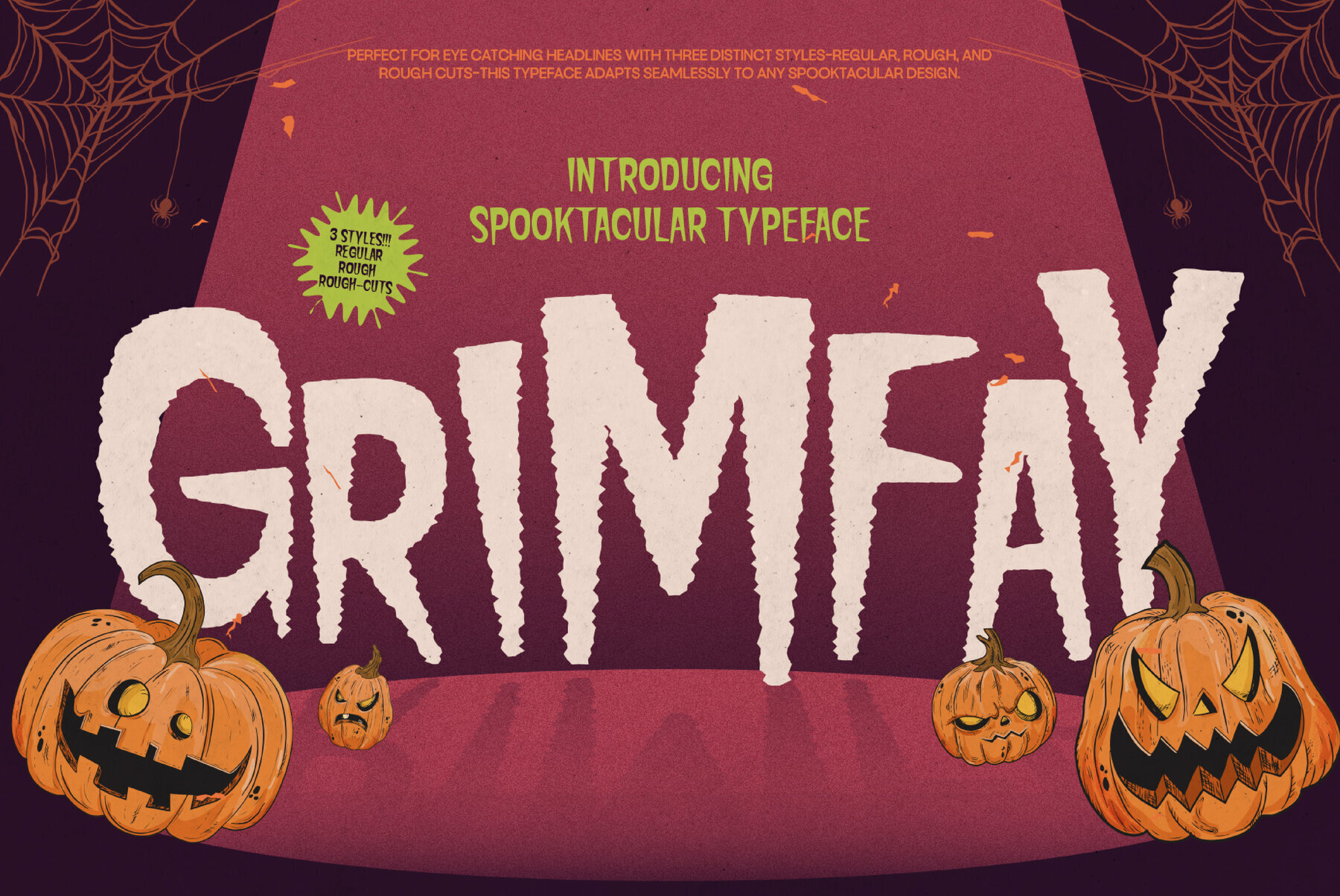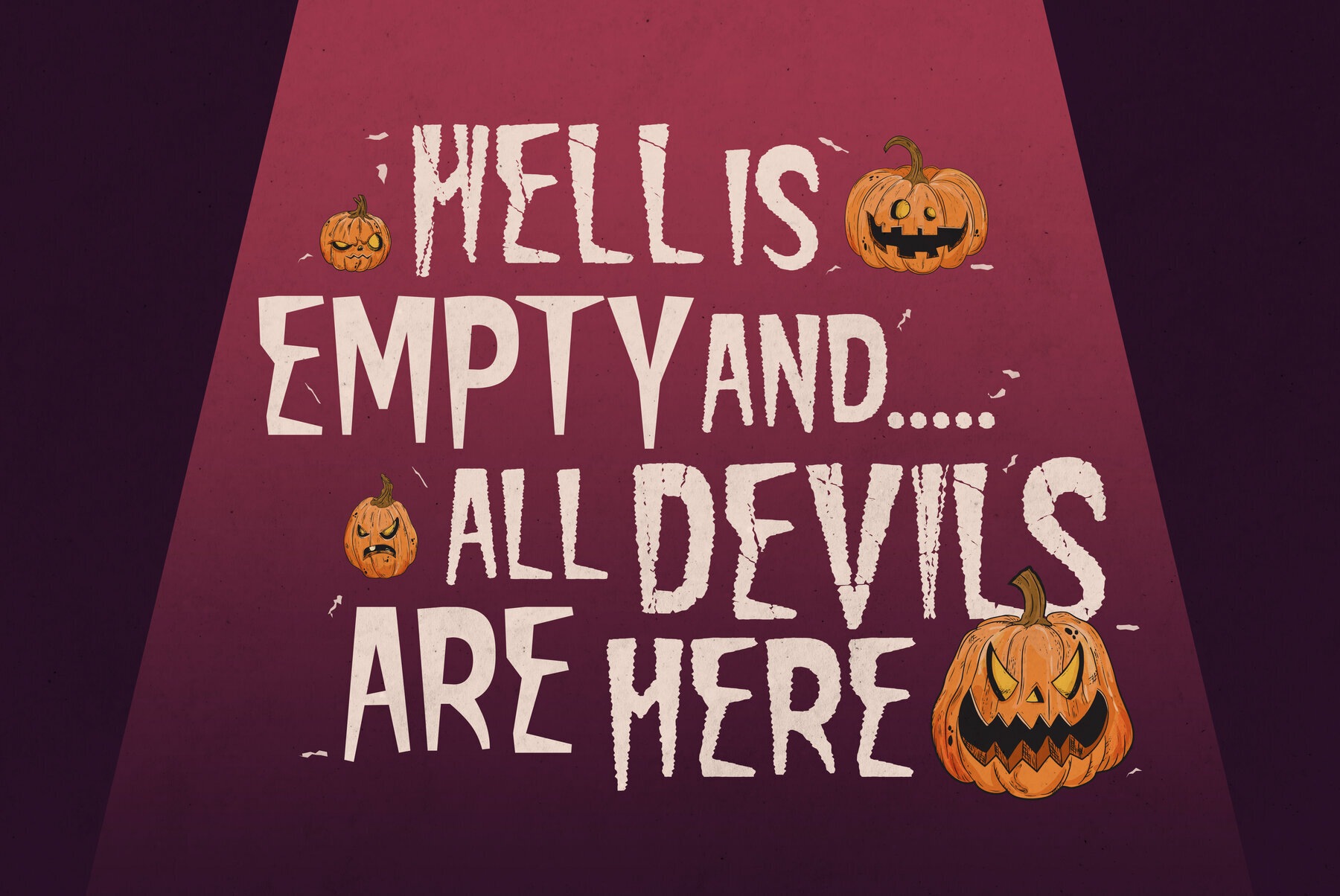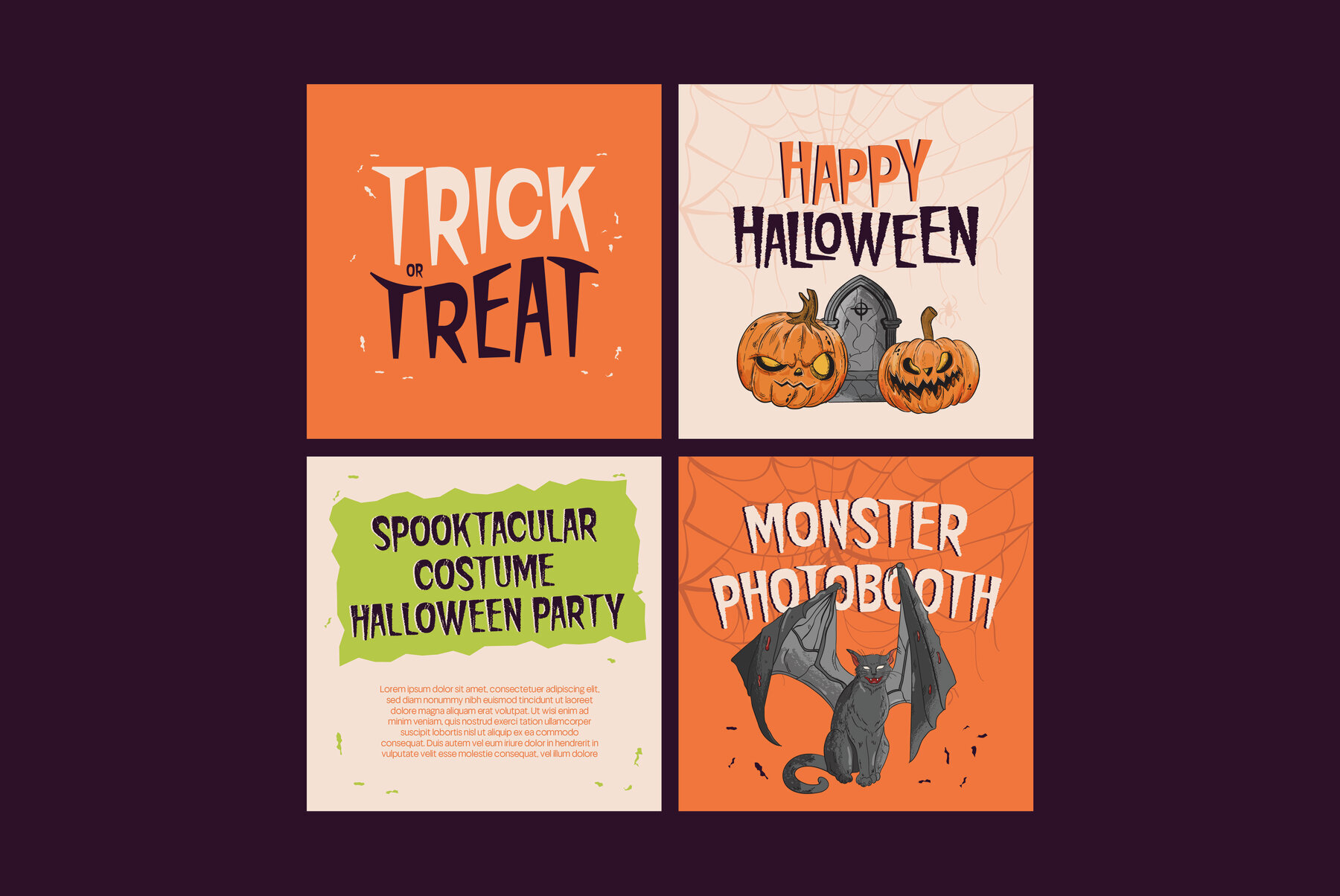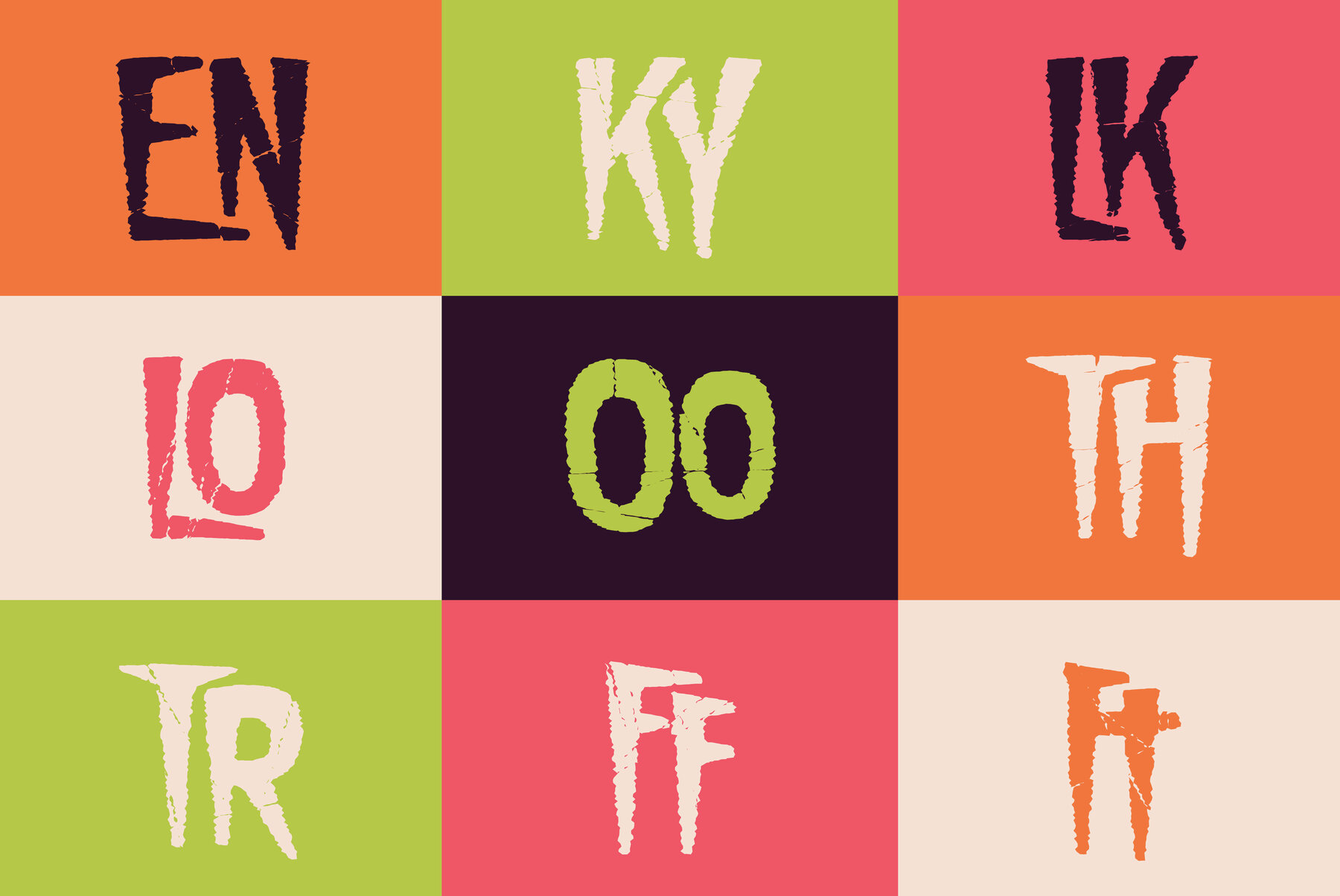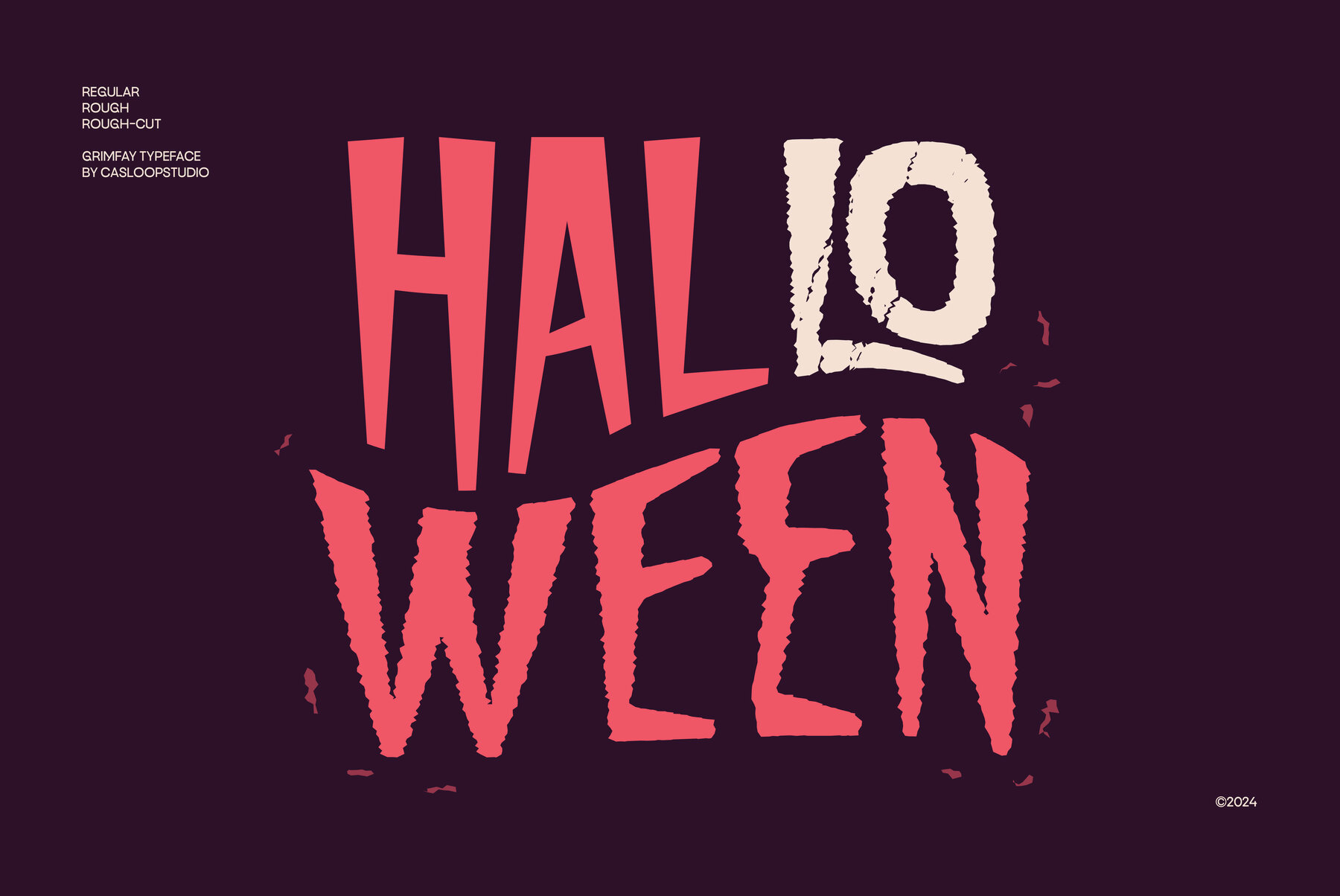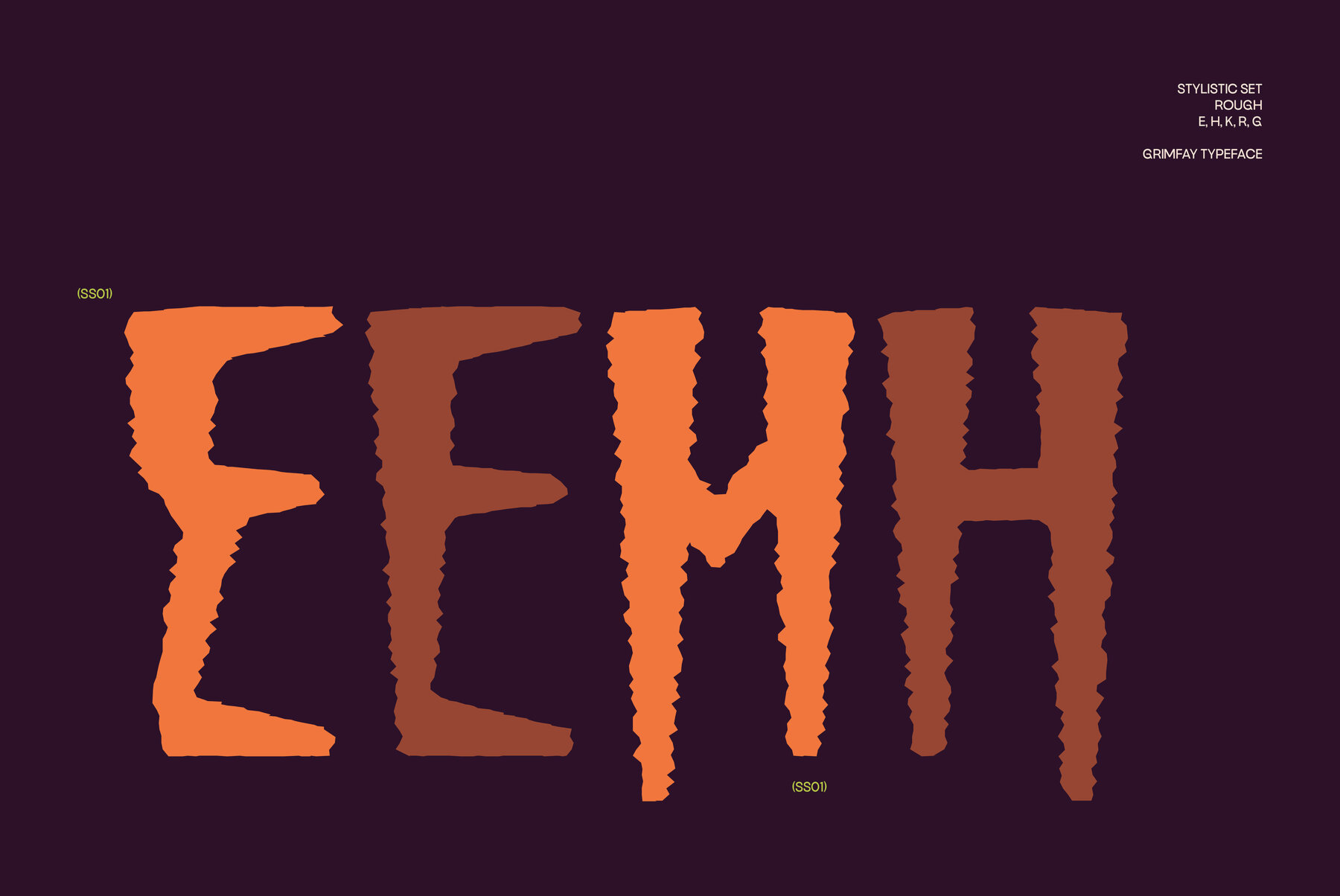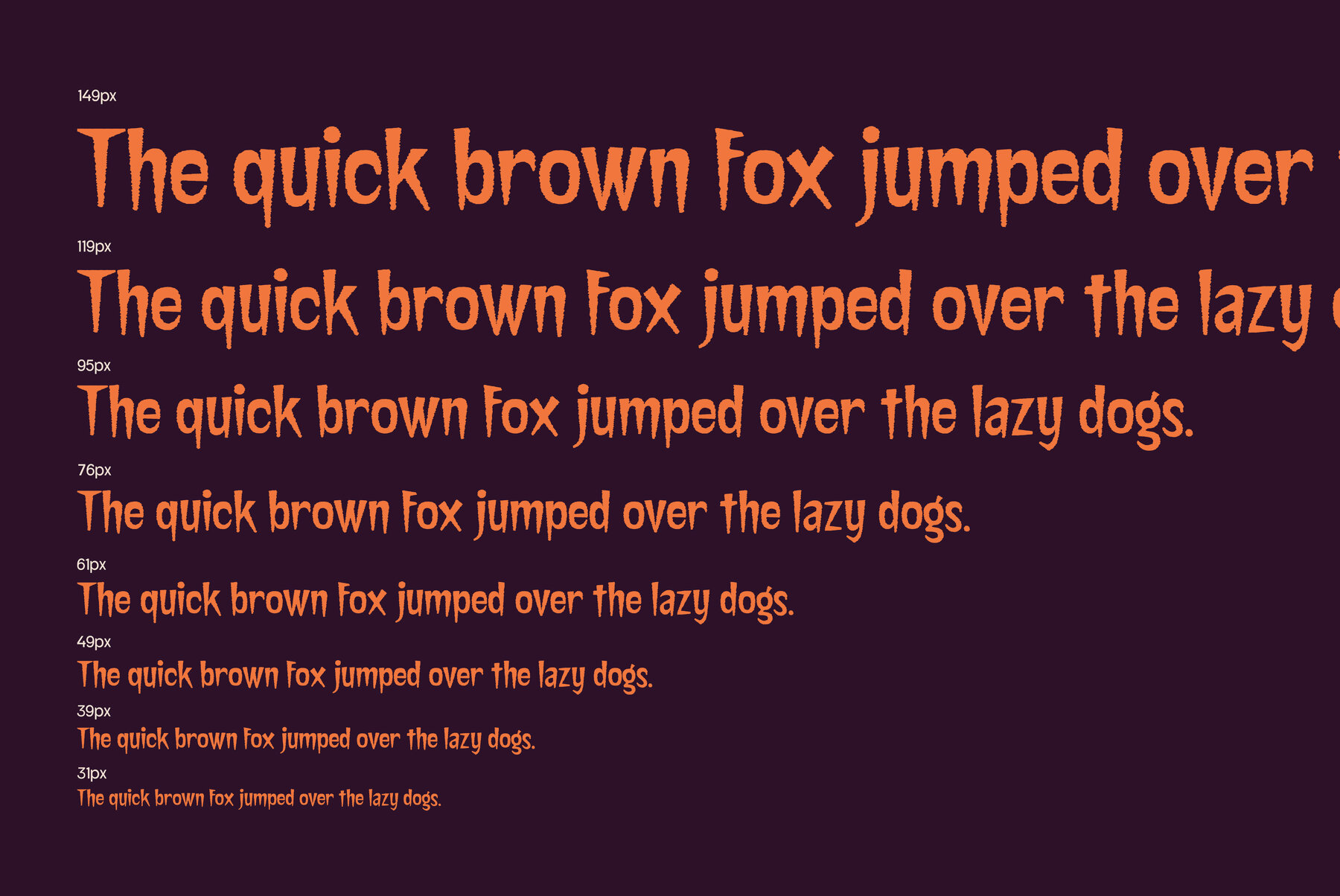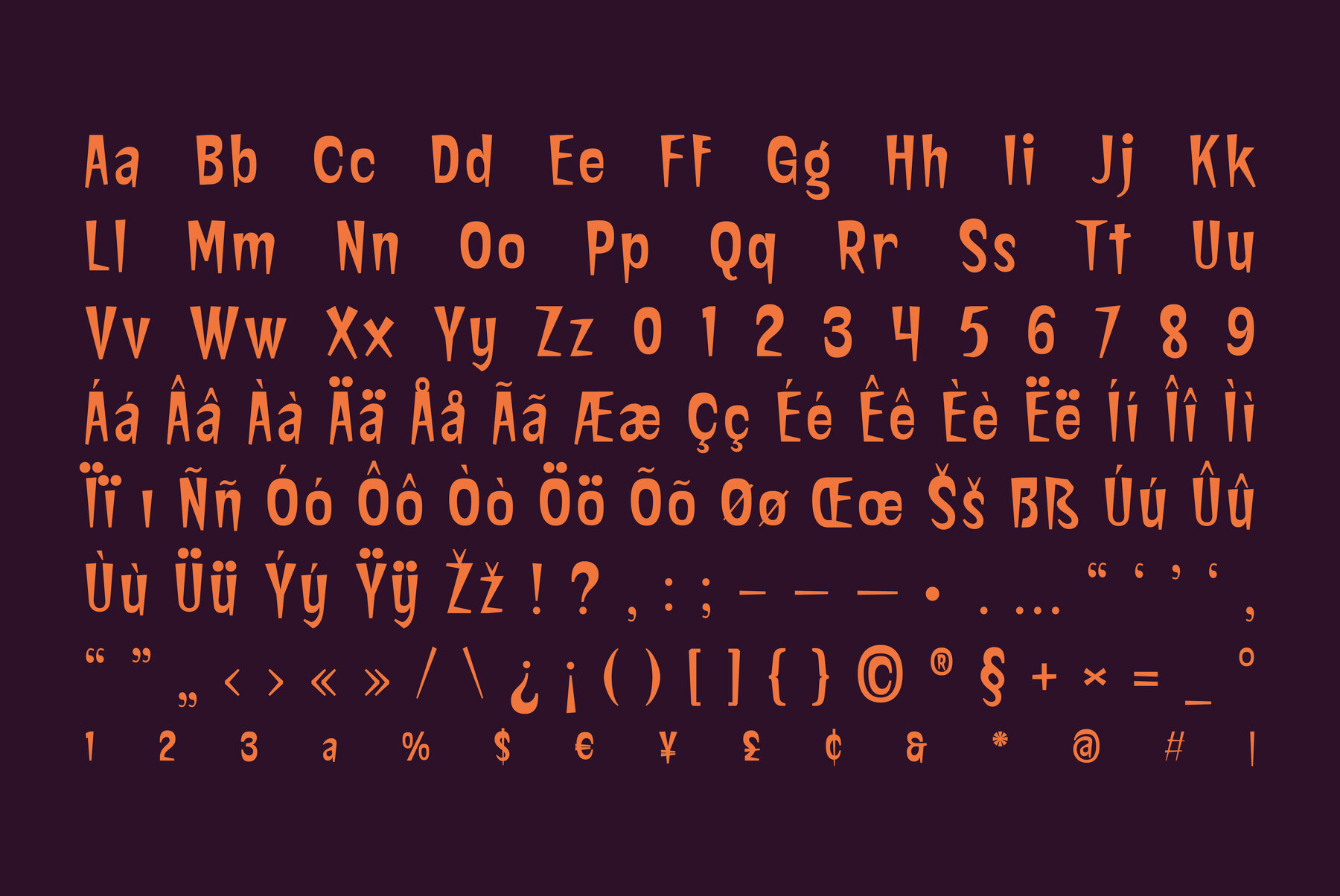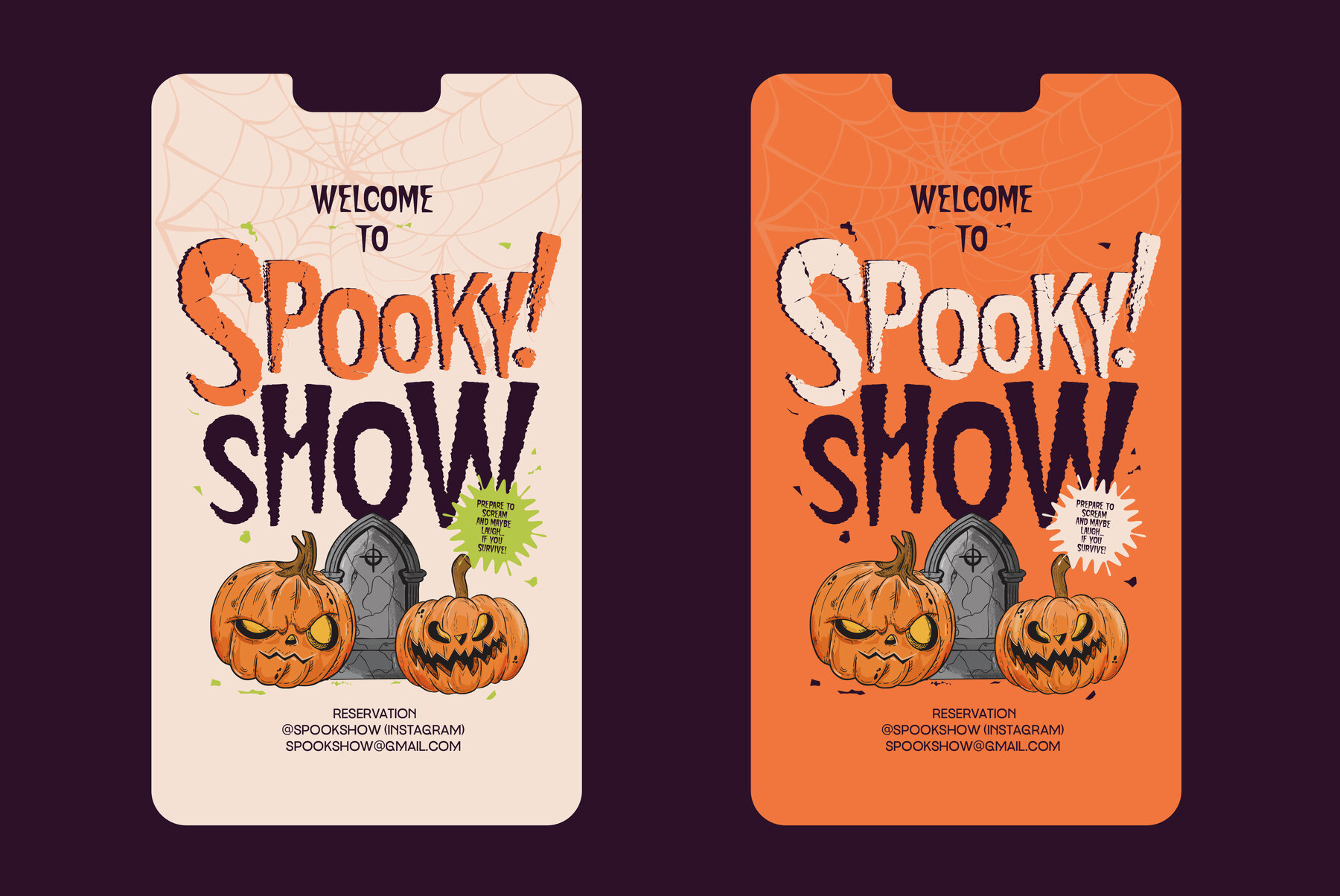
Grimfay Font
Grimfay Regular
Grimfay Rough
Grimfay Rough Cuts
Embrace the eerie allure of Grimfay, a distinctive decorative display font that masterfully evokes the spirit of haunting autumn nights. Perfectly lends itself to projects seeking a spine-tingling ambiance, whether for movie posters or branding that radiates uniqueness. Grimfay strikes a remarkable balance between fear and whimsy, offering expressiveness coupled with clarity. Its rough, grunge-inspired cuts lend a playful cartoonish charm, ideal for children's Halloween content while maintaining an underlying eeriness. Visualize this font on a zombie poster or as part of a haunted web design—Grimfay establishes the ultimate ominous atmosphere. What distinguishes Grimfay is its ability to harmonize playful horror with commanding visual presence. It excels in digital media, particularly in text animations and motion graphics. The font's dramatic, blood-stained aesthetics create an indelible impact, leaving a thrilling impression for audiences seeking a captivating design experience. Let Grimfay be the linchpin of your upcoming project. From nocturnal apparel to innovative logos and engaging digital content, this font delivers a distinctive level of spooky sophistication. Discover the world of Grimfay today and captivate audiences in the realm of horror.Grimfay: A Typeface for Spooky Elegance